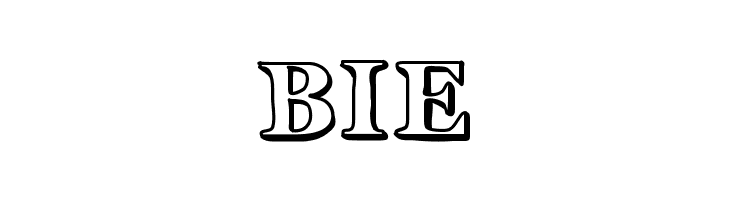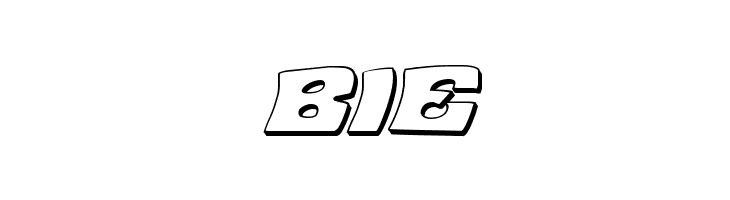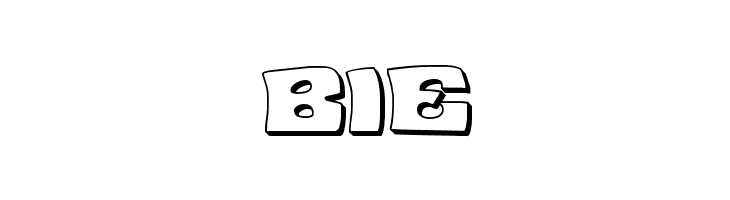
Bold, outlined serif font with a modern twist and classic elements.
A bold, artistic font with a mix of solid and outlined characters, perfect for creative projects.
A playful, outlined font with rounded, smooth characters and a whimsical style.
A bold, outlined decorative font with a geometric and industrial style.
A bold, outlined font with a modern and playful aesthetic.
A bold, outlined font with a modern and geometric style.
A bold, 3D italic font with outlined characters and a modern, dynamic style.
A bold, italicized font with outlined, three-dimensional characters.
A bold, 3D outlined font with a playful and dynamic style.